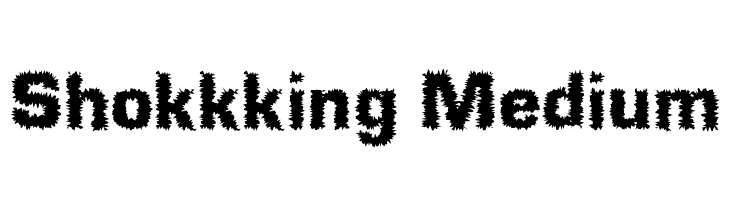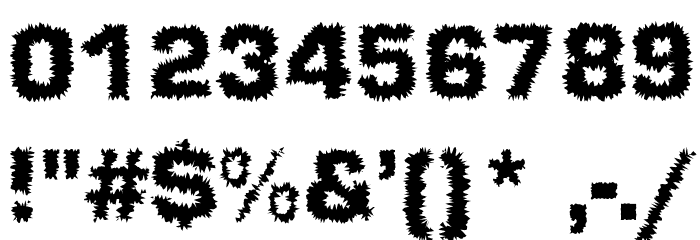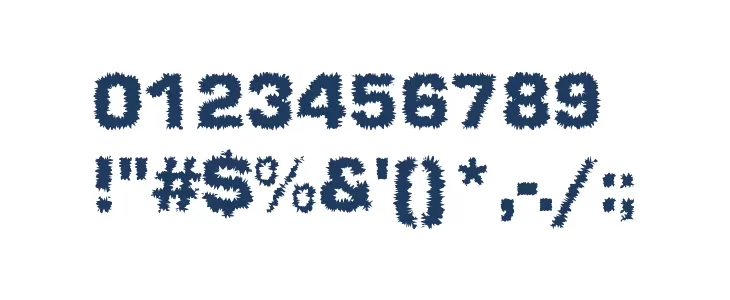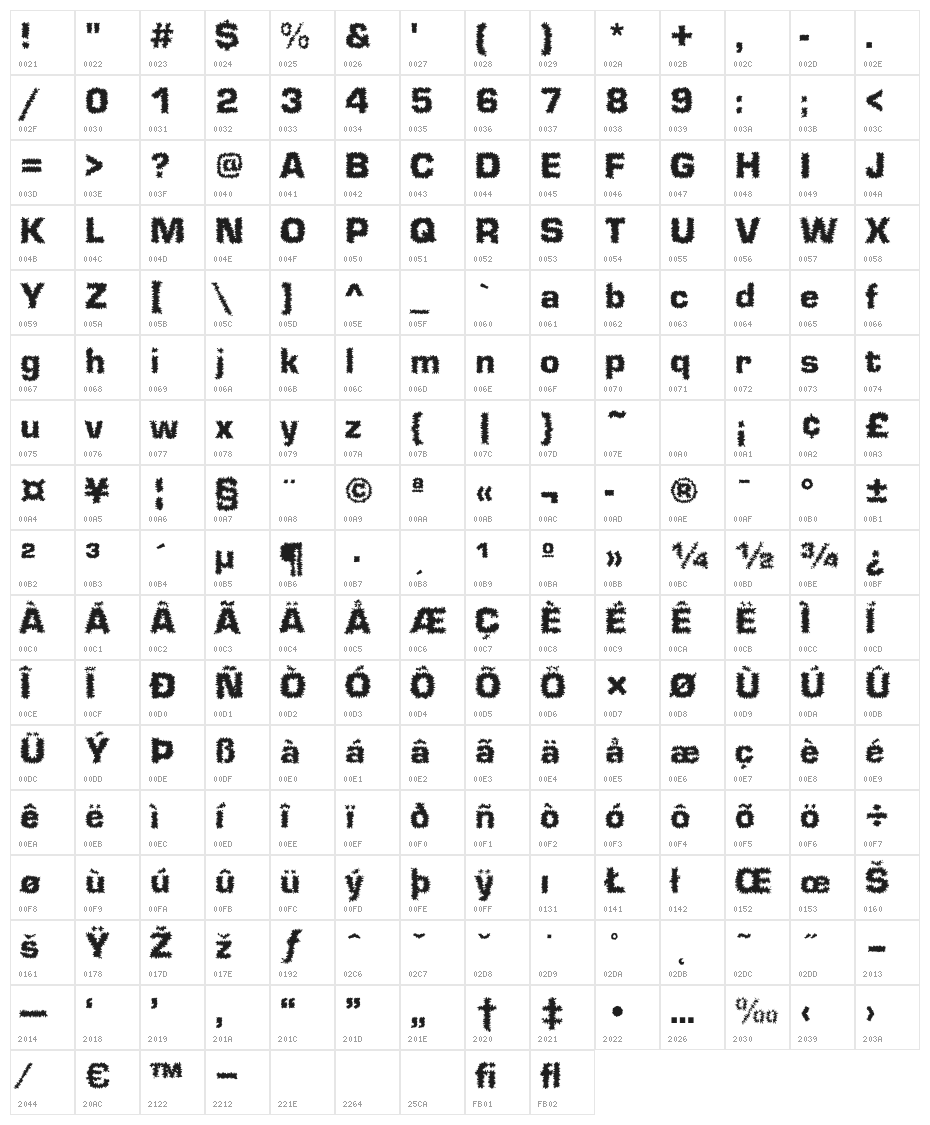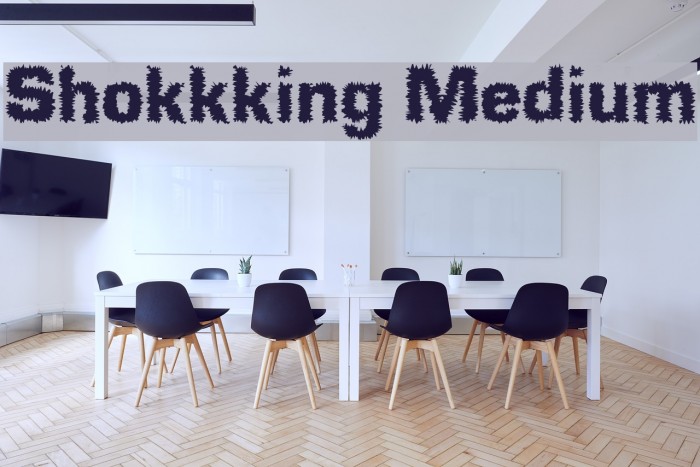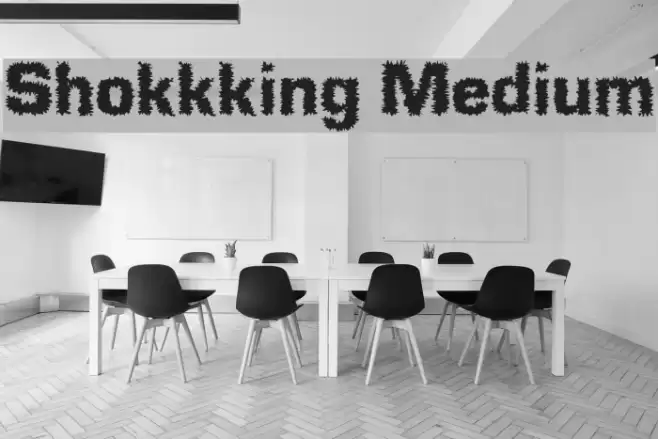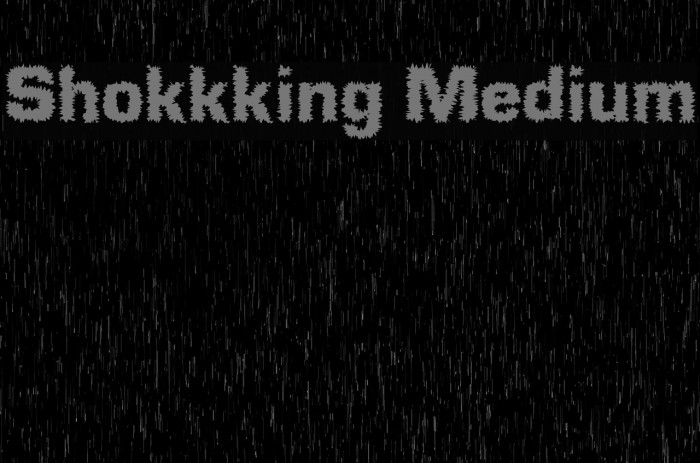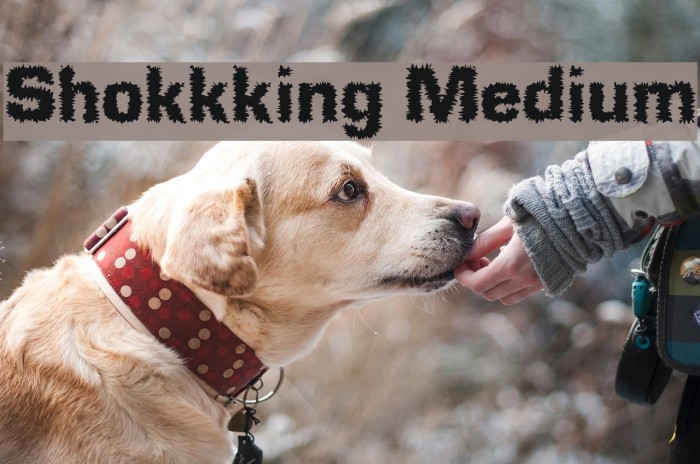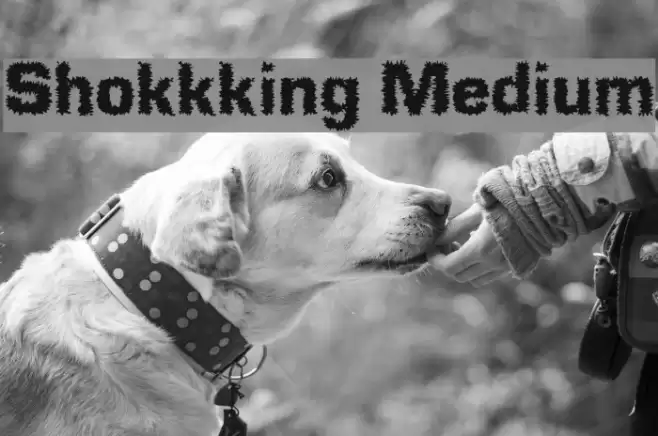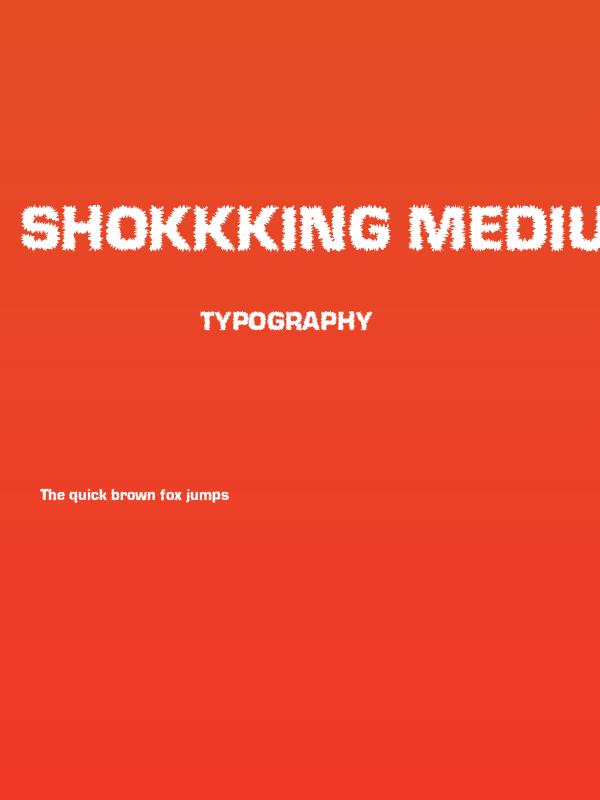
Shokkking Medium Font
Shokkking Medium Description
This font features a bold and jagged design, with each character appearing as if it is surrounded by sharp, spiky edges. The unique texture gives it a dynamic and energetic feel, making it stand out significantly. The uppercase and lowercase letters maintain a consistent style, with the spikes adding a sense of movement and intensity. Numbers and special characters are equally distinctive, ensuring a cohesive look across all elements. This font is ideal for projects that require a dramatic and eye-catching appearance.
| Proposed Projects | Perfect for Halloween-themed designs, edgy posters, music album covers, or any project needing a striking and unconventional look. |